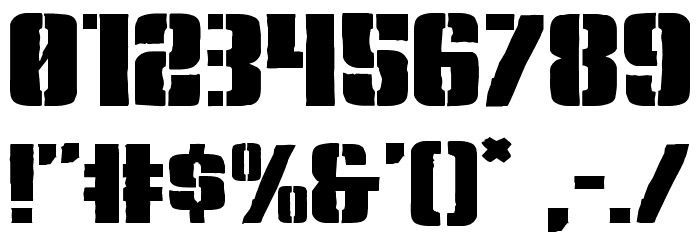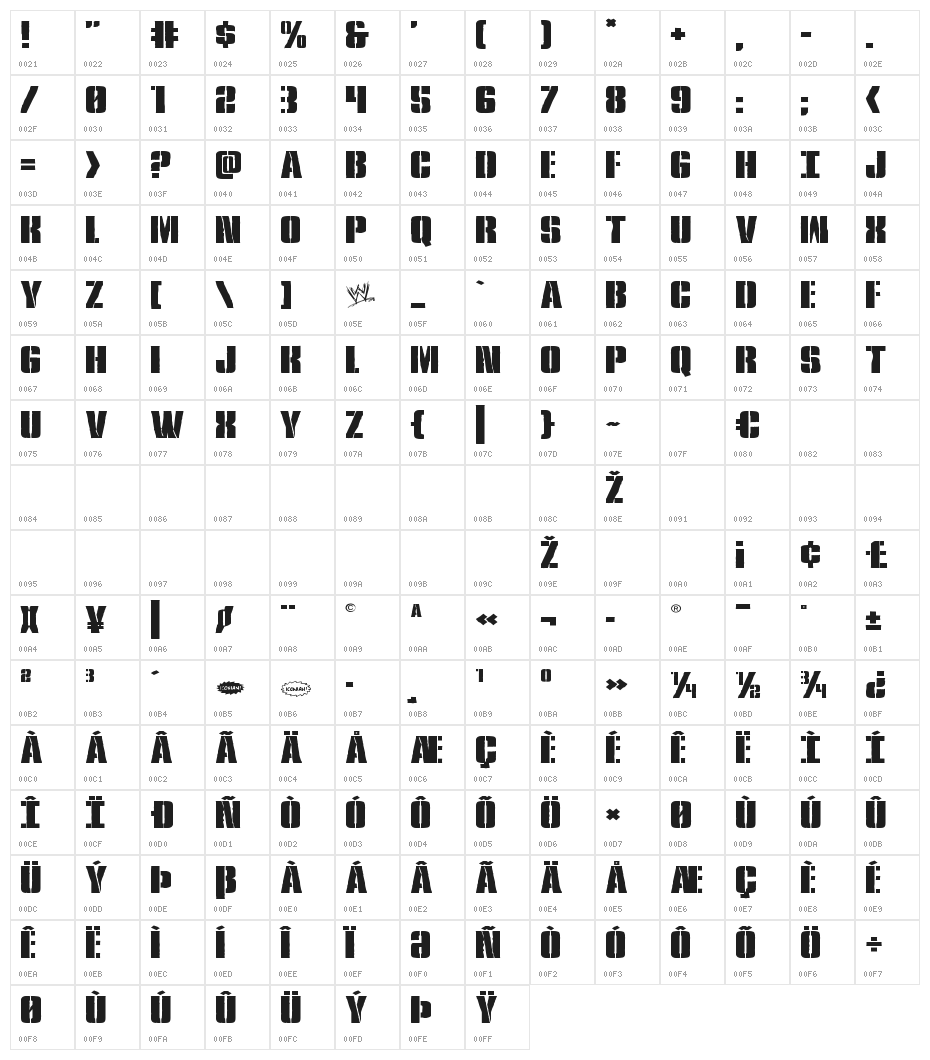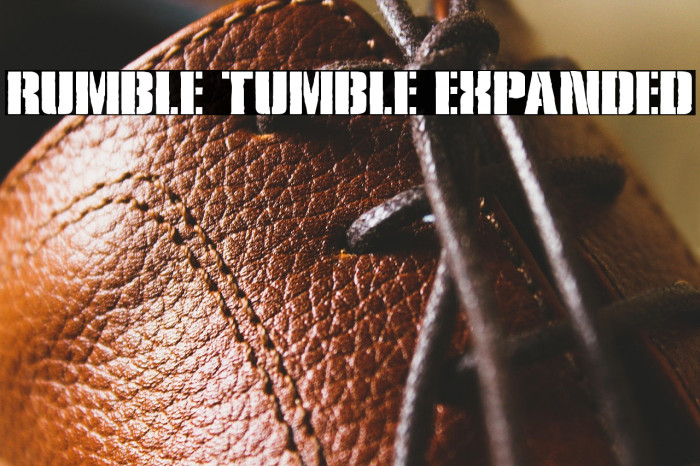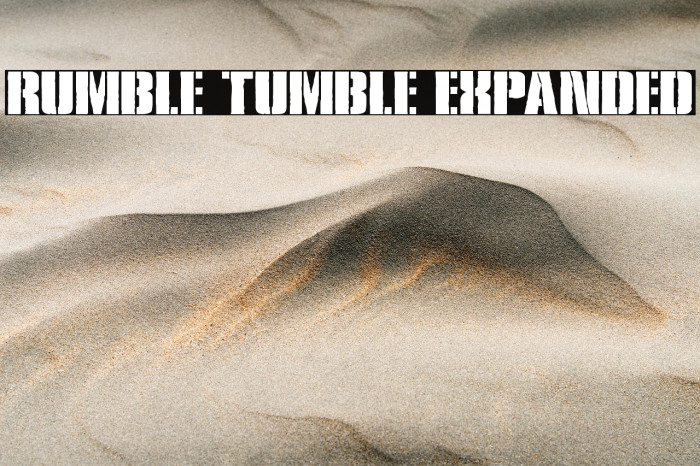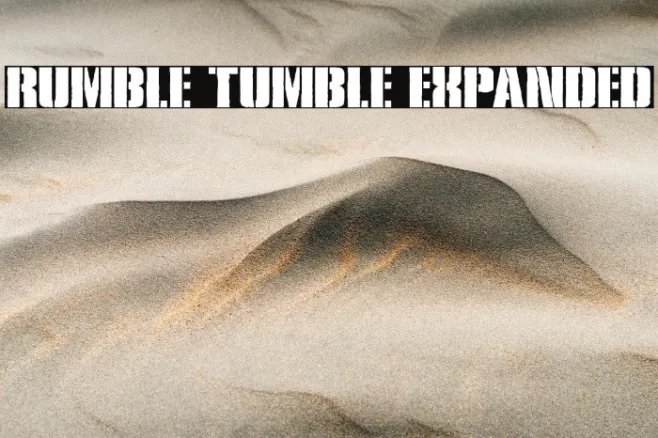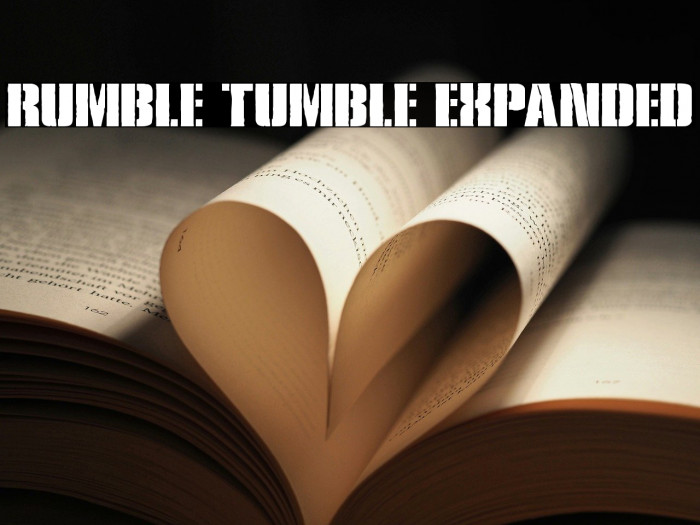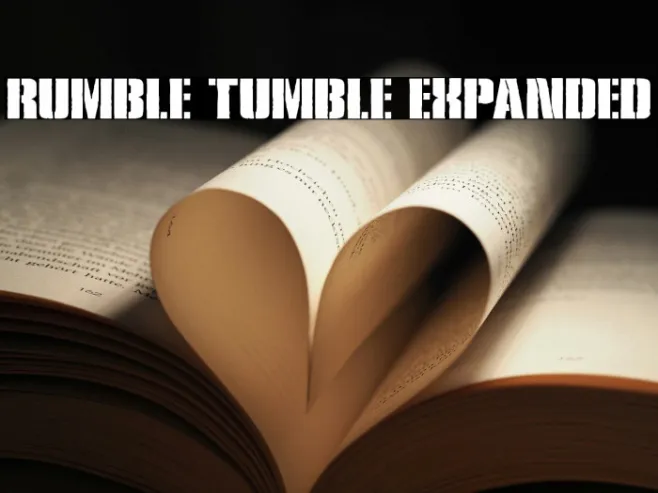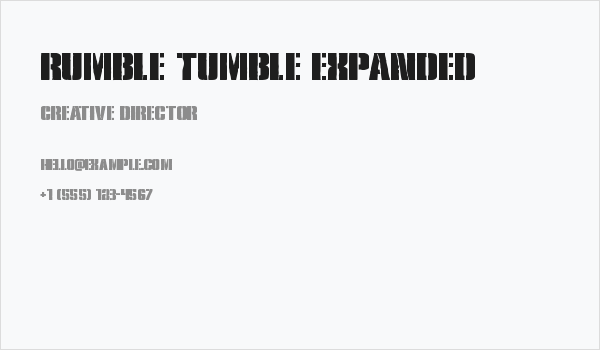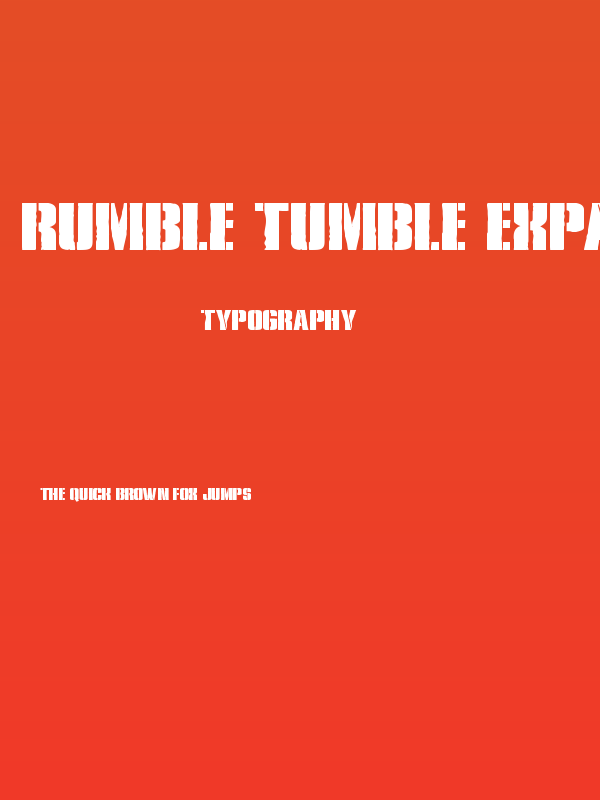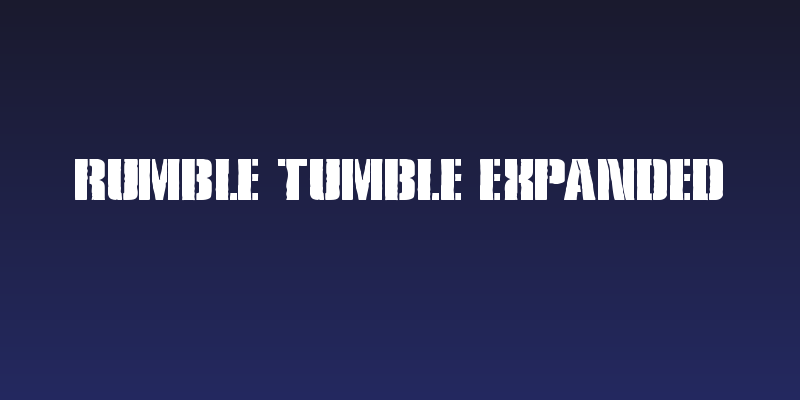
Rumble Tumble Expanded Font
Rumble Tumble Expanded Description
This font features a bold and rugged stencil design, characterized by its heavy weight and distinct cut-out sections within each character. The uppercase letters are prominent and impactful, making a strong visual statement. The numbers and special characters maintain the same boldness, ensuring consistency across all elements. The font's style is reminiscent of industrial or military themes, with a modern twist that adds a unique edge. Its expanded width allows for greater presence on the page, making it ideal for attention-grabbing headlines or titles.
| Overall Style | Modern, Industrial |
| Proposed Projects | Ideal for projects requiring a strong visual impact, such as posters, banners, branding for outdoor or adventure-themed products, and military-inspired designs. |